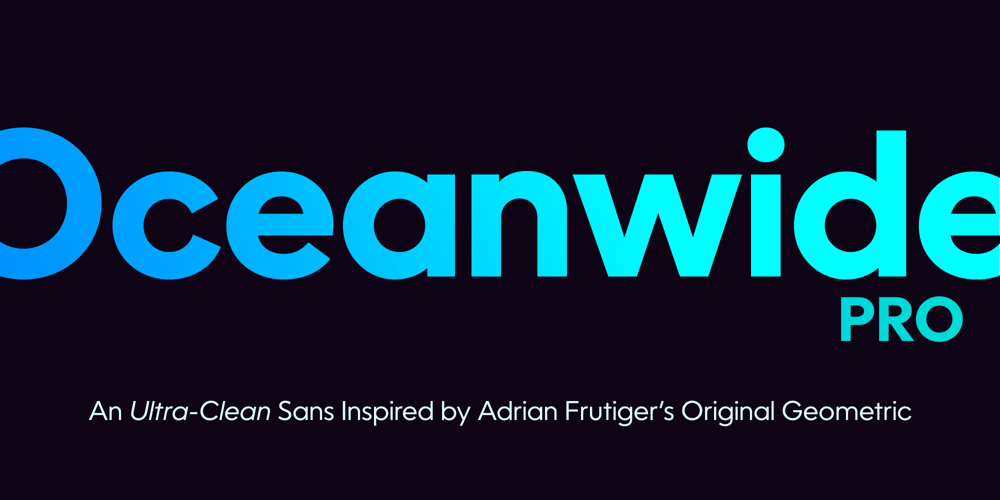
Oceanwide Pro Font Family was designed by Adrian Frutiger, Dave Lawrence and published by California Type Foundry. Oceanwide Pro contains 45 styles and family package options. A font perfect for not just one, but many projects! Introducing Oceanwide Pro, a sans that loves to be used in just about any situation! Designed with ultra clean lines and versatility in mind, Oceanwide wants to be your new favorite sans!Oceanwide’s ultra clean letters work anywhere you want to communicate orderliness and competence, and designed to build trust and rapport with your audience. Its wide proportions make it ideal for display and logo use.Oceanwide especially shines for white/bright letters on black/dark backgrounds! That’s because the inside shapes are nearly perfect circles in many weights.Here’s a quick video tour of Oceanwide Pro by Dave Lawrence, including all the great things Oceanwide can be used for!We’ve tested Oceanwide for these industries, with stunning results!: Tech Arts Fashion & Style Business & Branding Corporations Logistics Architecture Food and many more… Oceanwide can be used for: Headers Subheadlines Logos Even body text, if tracked. Print & Screen The styles it can take are also many. It’s great for: Modern/minimalist design Flat design Cut out design User Interface (UI) Technical designs In combination with text effects, even for grunge and other situations. And many others… DESIGN FEATURES Simplicity Tall x-height Hand-sloped obliques (italics) Narrow spacing Semi-wide proportions Expert kerning Well proportioned, usable lights & extra lights Large caps Great ALL CAPS MODE Uppercase punctuation Uppercase spacing with California Type Foundry’s Smart Tracking™ Advanced fraction support Proportional lining figures Thick joins Smooth curves Sturdy—great for textures and effects Variable font available Latin Pro character set for Central European languages. That’s the writing for over 782 languages and transliterations worldwide! DESIGN STORY—THE FORGOTTEN SANSby Dave Lawrence, Lead Designer, California Type FoundryAdrian Frutiger was the 20th century master of sans, but I didn’t realize he had made—not one—but TWO geometric sans!It wasn’t until I had purchased the book “Adrian Frutiger: Typefaces”. I had hoped to someday meet Adrian Frutiger, but he passed away that very same year.Here is the story of Frutiger’s forgotten sans. Back in 1968, Frutiger was approached by Pentagram to make a design for British Petroleum. They wanted a “new version of Futura”. However, they wanted him to make a couple adjustments. First, they felt that Futura was “too fiddly.” By this, they meant that it narrowed too much at the joins. (Joins are for example where the round and straight parts of the ‘d’ meet.) This is something that is necessary for small print text (to prevent ink clogging), but is not necessary at large sizes.Second, they wanted it to be entirely geometric, using the circular shape with minimal optical corrections.Unfortunately this font was not even used very consistently in the BP brand. A haphazard mix of Futura and Frutiger’s BP font ensued. It was then replaced by another font design very soon after.My design is different in several ways. First, the commas and quotes are a more modern style. I tried his original commas, but these just didn’t work to 21st century eyes. Second, in his drawings, Frutiger went for a more standard u with a downstroke on the right. However, Oceanwide has a simpler u.Third, I made more optical adjustments. At the direction of his employer, Frutiger reluctantly put no font optical corrections into the letters. So I think my optical adjustments are similar to what Frutiger would have wanted.Fourth, I extended the weight into the light and extra light ranges. Fifth, the rest of the font I created according to the principles of Adrian Frutiger, but with no sources for inspiration.Here is Frutiger’s design philosophy, in his own words: “If you remember the shape of your spoon at lunch, it has to be the wrong shape. The spoon and the letter are tools; one to take food from the bowl, the other to take information off the page… When it is a good design, the reader has to feel comfortable because the letter is both banal and beautiful.”The words about the spoon were the ones I kept in my mind as I tried to make the curves ultra smooth, and the shapes ultra simple.Hopefully this font is a worthy successor to the font that inspired it.Released on the 93rd birthday of Adrian Frutiger, to celebrate the life and achievements of this amazing designer.———————Simplicity. Versatility. Oceanwide.